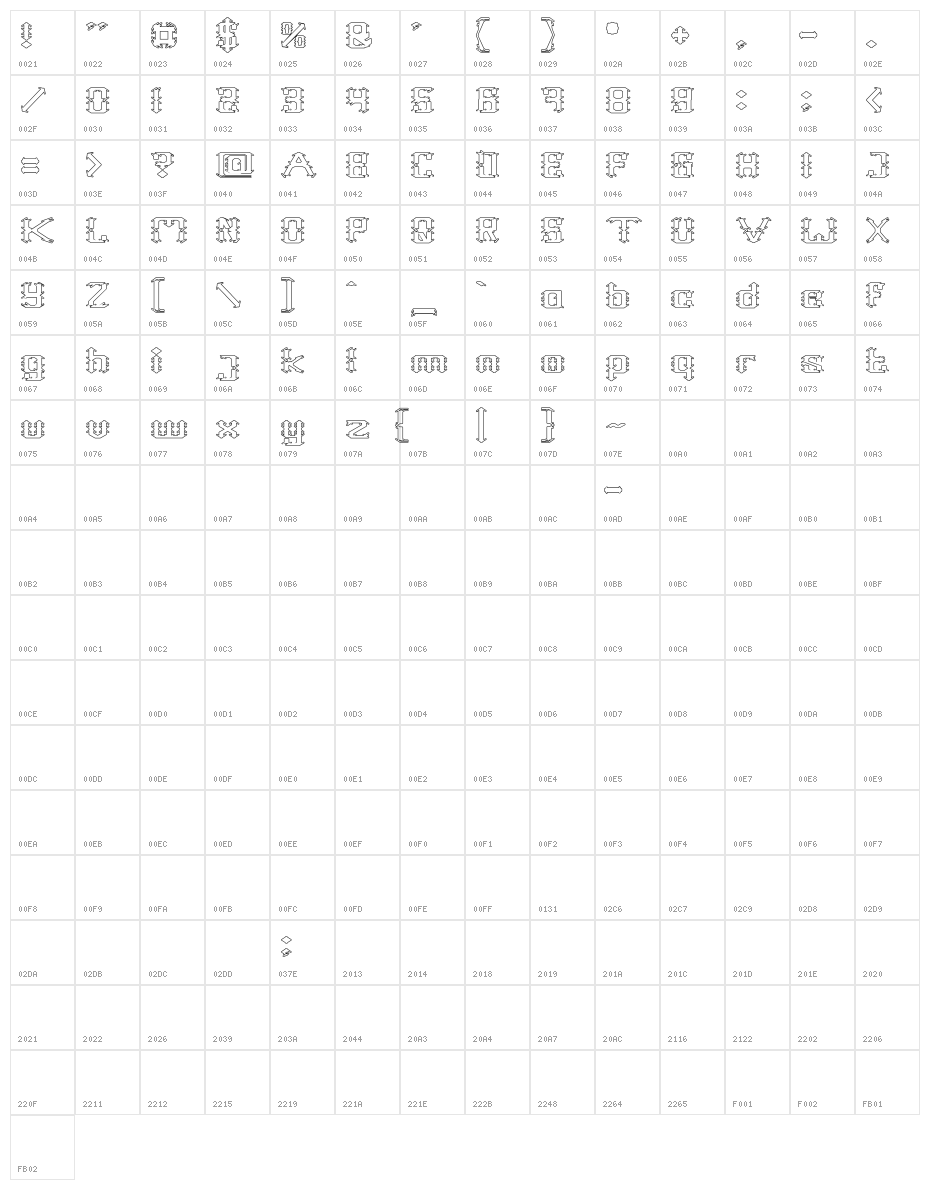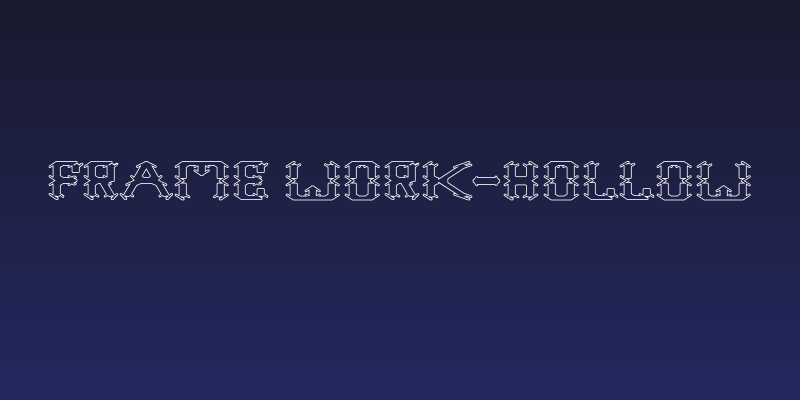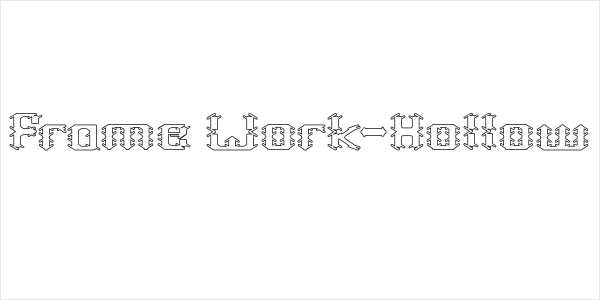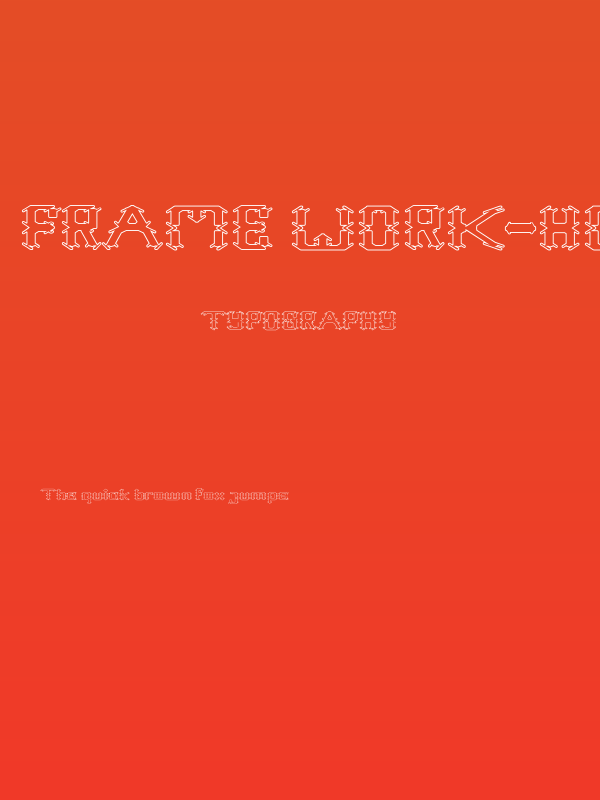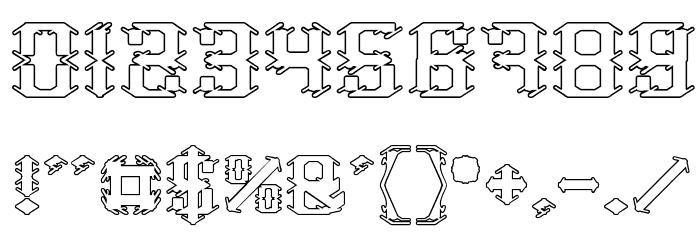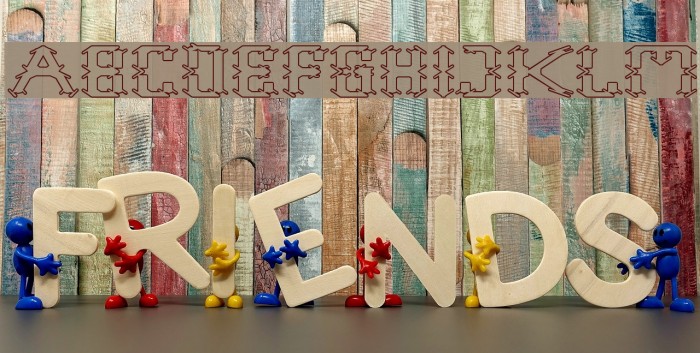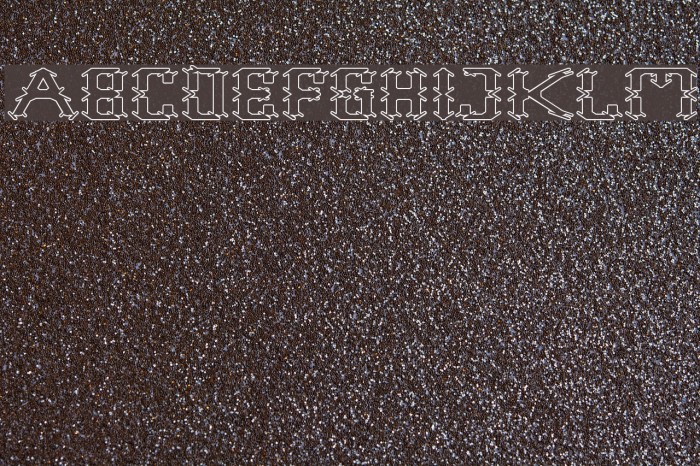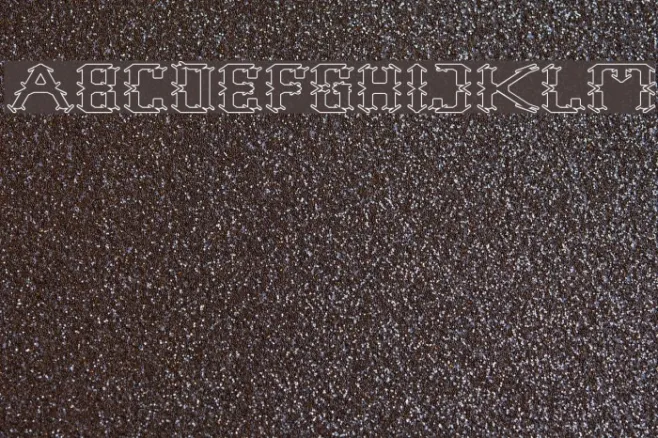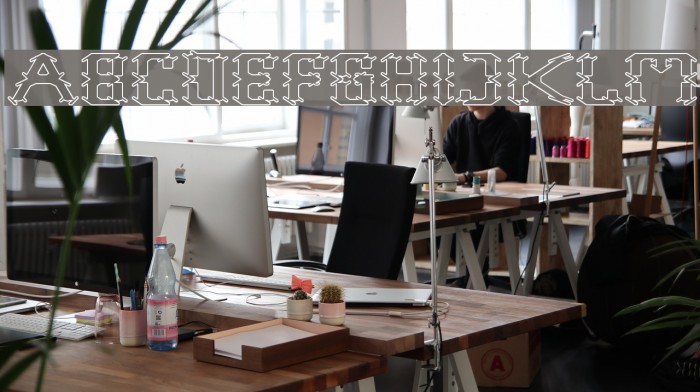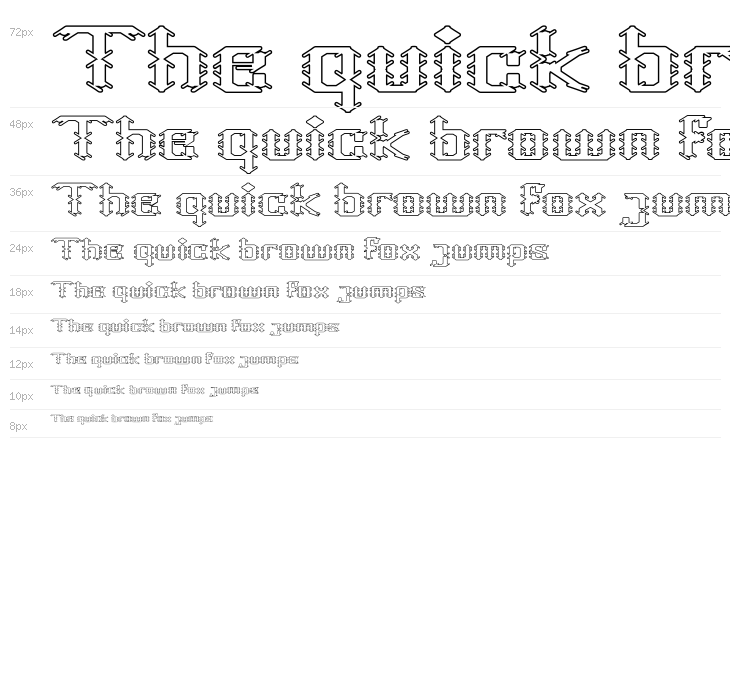
Frame Work-Hollow Font
Frame Work-Hollow Description
This font features a unique, hollow design with intricate, angular shapes that create a framework-like appearance. Each character is outlined with a bold, geometric pattern that gives it a distinct, industrial feel. The uppercase and lowercase letters maintain a consistent style, with sharp edges and a structured form. The numbers and special characters follow the same design principles, ensuring uniformity across all elements. This font's hollow nature allows for creative use of background colors or textures to shine through, enhancing its visual impact.